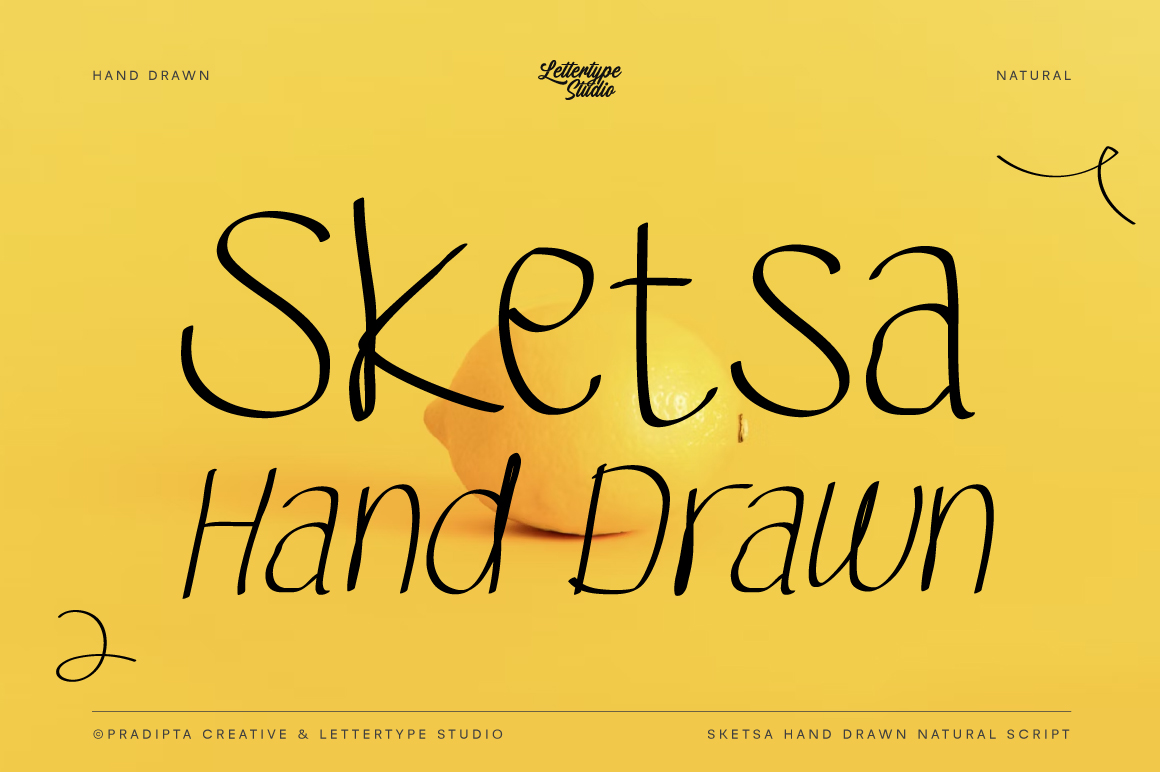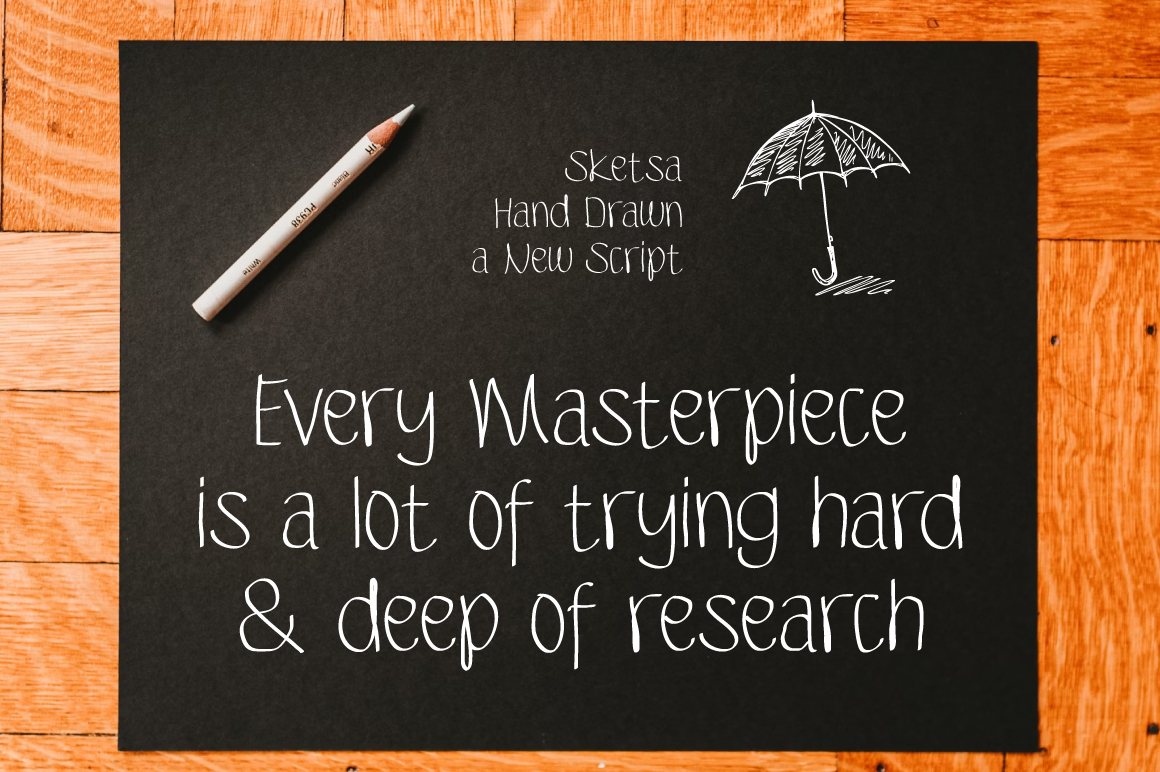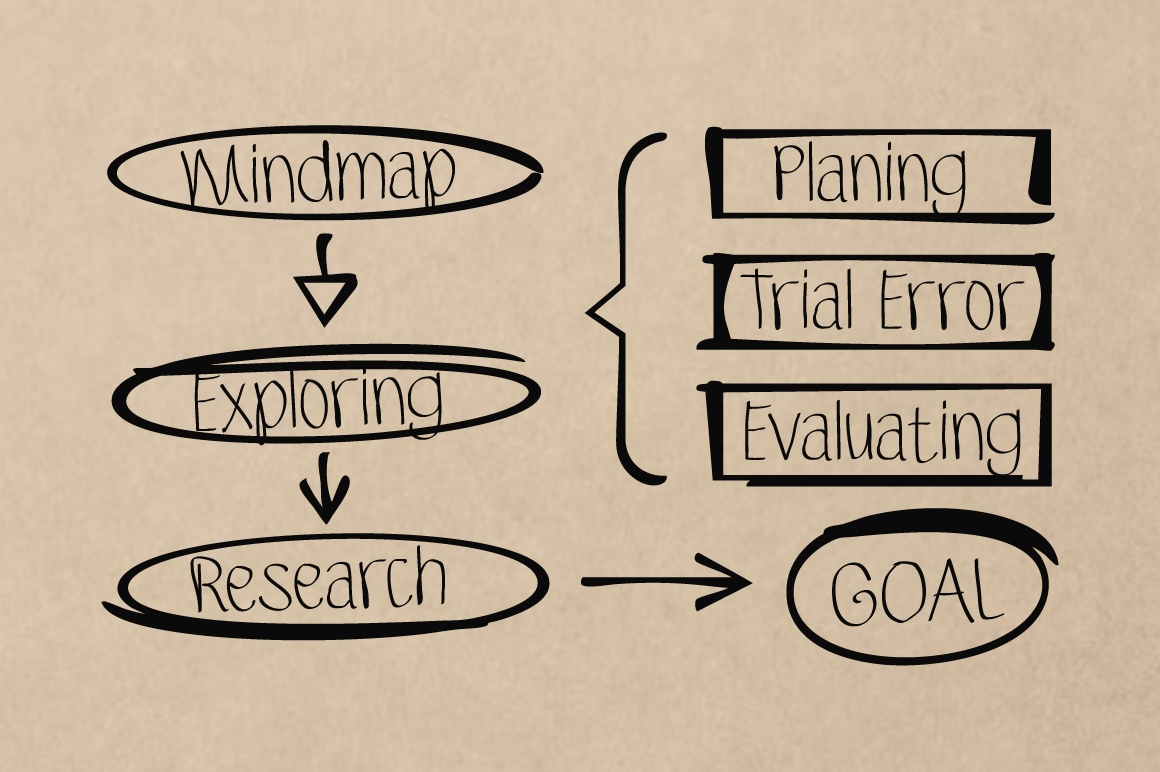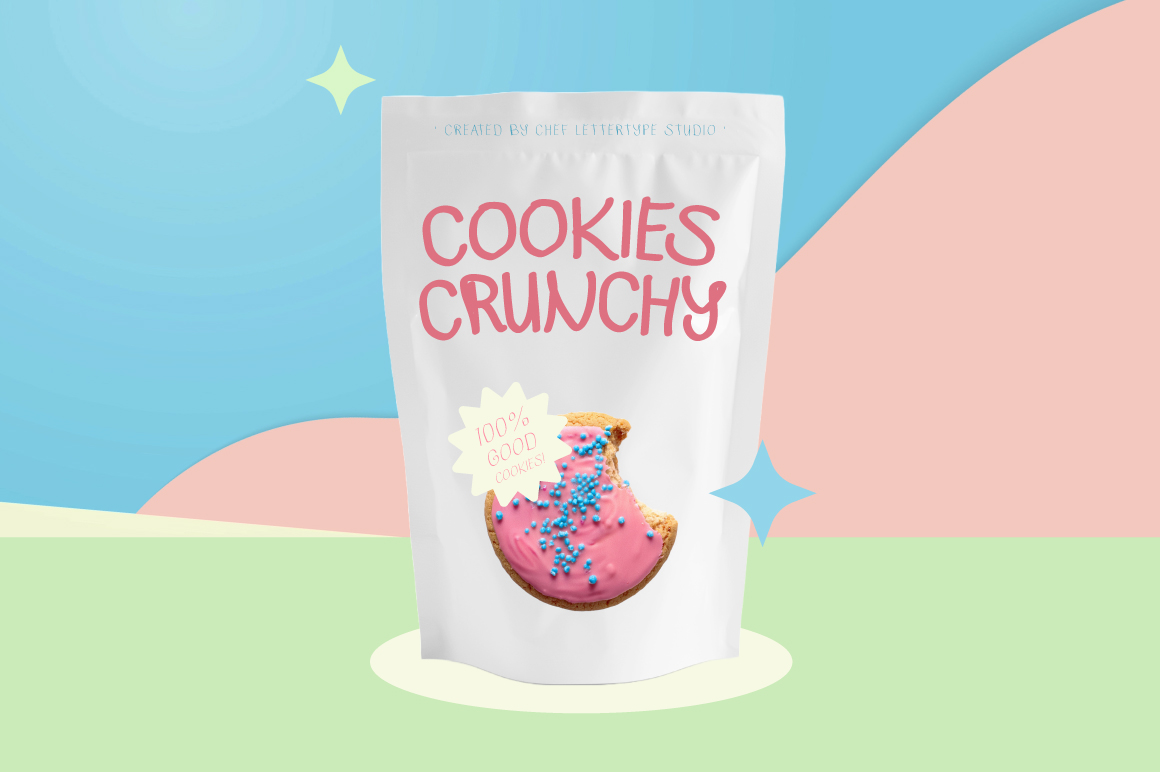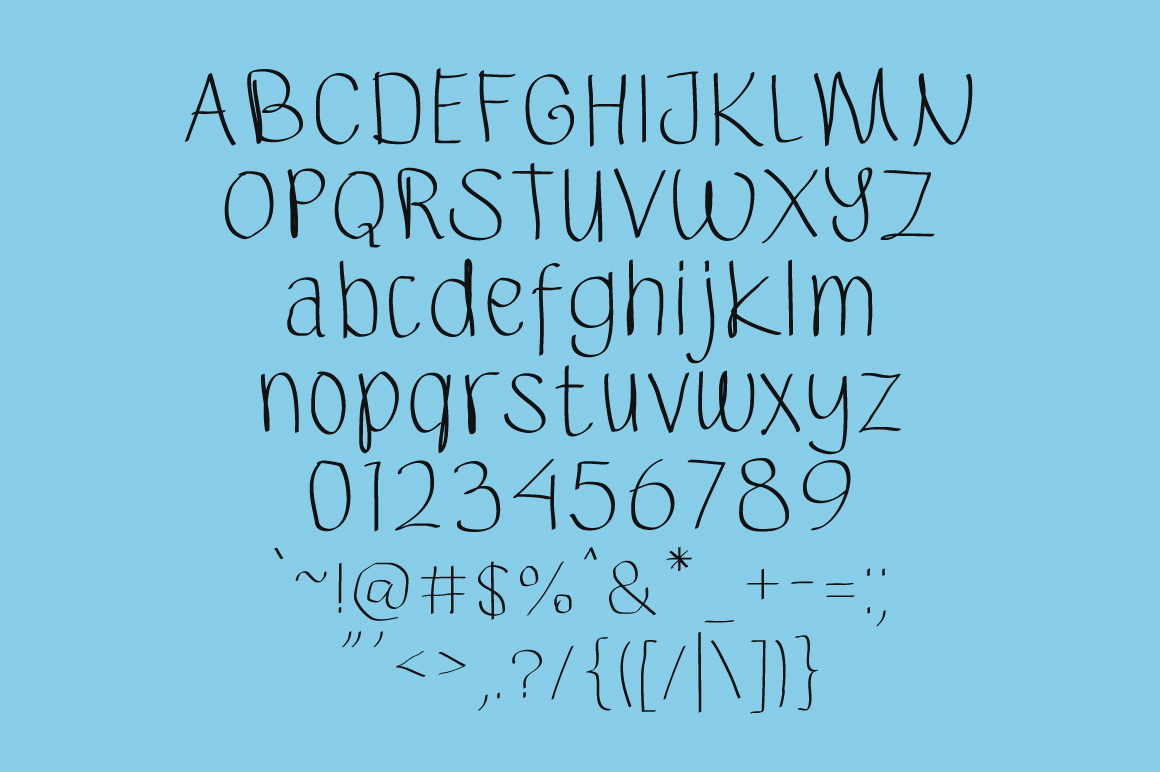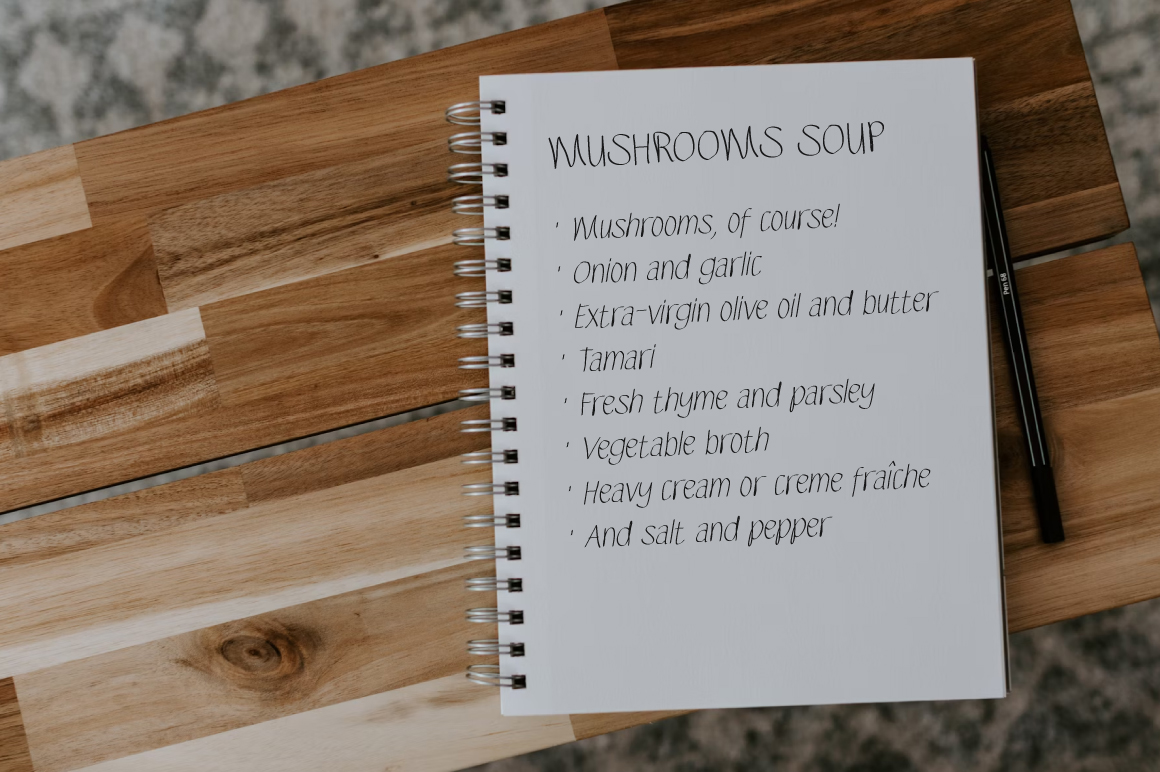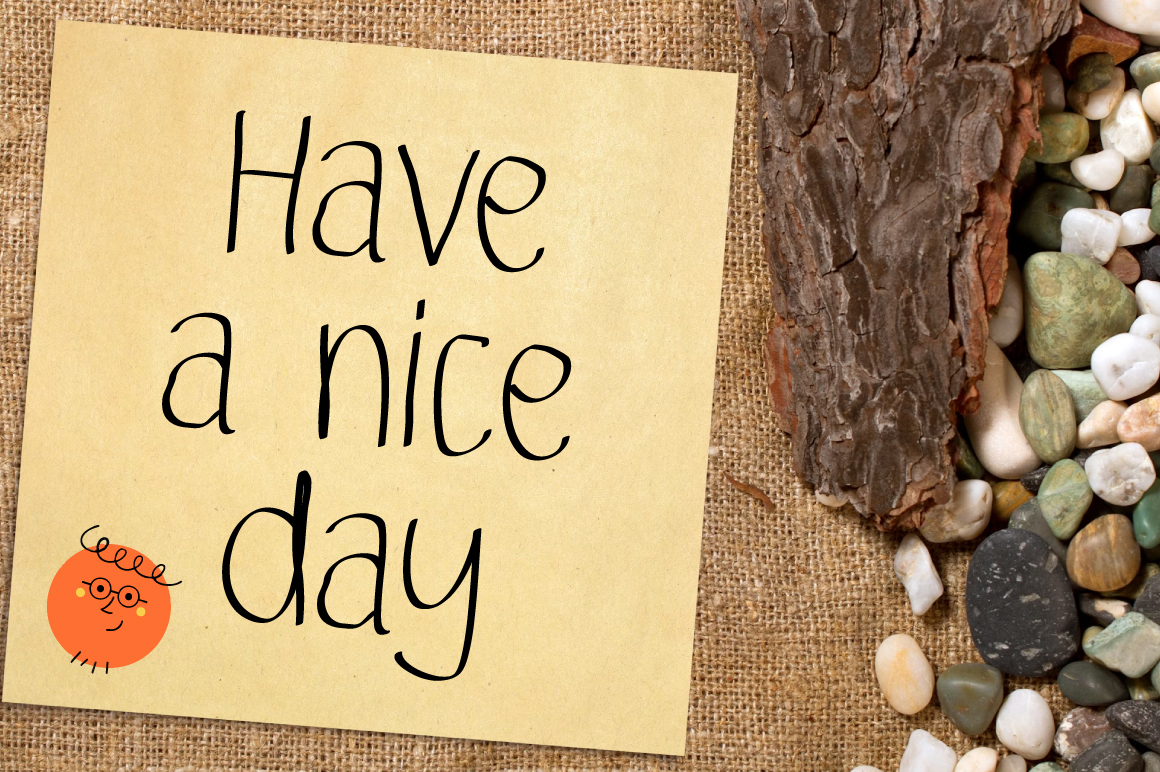
Sketsa Handdrawn - Regular
Sketsa Handdrawn - Italic
Sketsa Handdrawn is a script handwriting fonts that seamlessly blend natural, bold, and quote-worthy styles, perfect for adding a personal touch to your designs with consitance feel. These typefaces emulate authentic handwriting, offering a spectrum from delicate swashes to robust strokes, ideal for branding, invitations, expressive typography, notes, and many more.
Sketsa Handdrawn Features:
• 2 Styles (Regular & Italic)
• Handwritten logos, quotes & personal branding
• Wedding invitations, greeting cards & stationery
• Packaging, labels & handmade product design
• Social media posts, quotes & lifestyle content
• Posters, journals & creative lettering projects